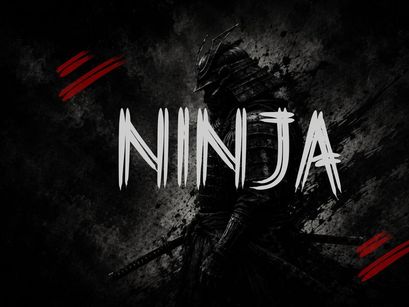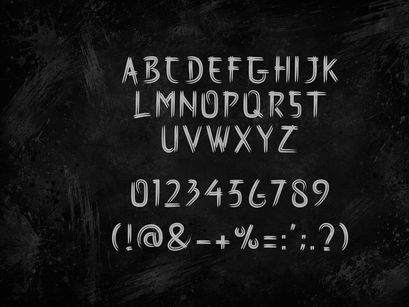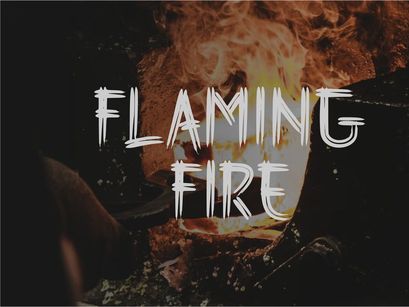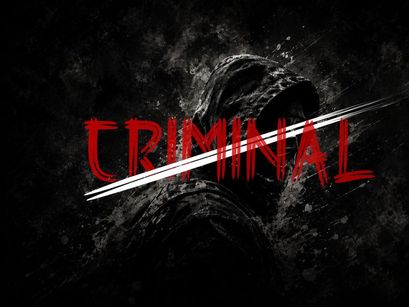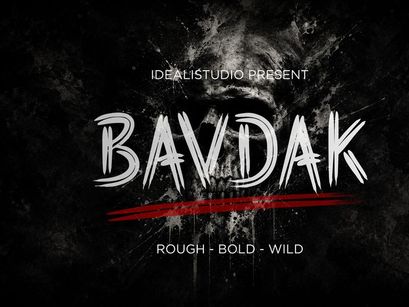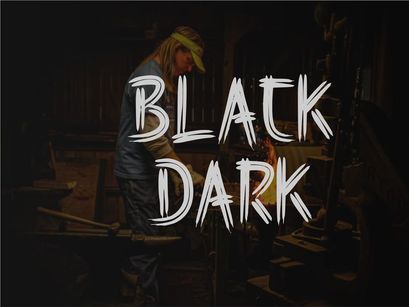
BAVDAK – Brutal Brush Display Font
BAVDAK is a bold and aggressive brush display font designed to bring a raw, rough, and rebellious character to your designs. Featuring energetic brush strokes, sharp edges, distressed details, and an expressive hand-painted feel, BAVDAK delivers a powerful visual impact that stands out instantly.
With its wild and handcrafted appearance, BAVDAK is made for designs that need a strong attitude, urban energy, and an uncompromising visual presence.
ROUGH – BOLD – WILD